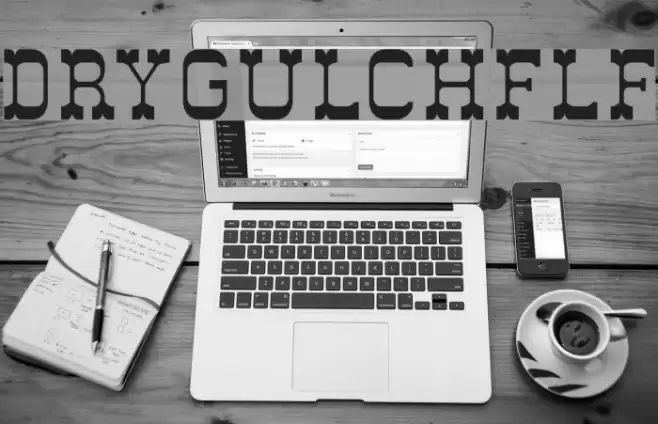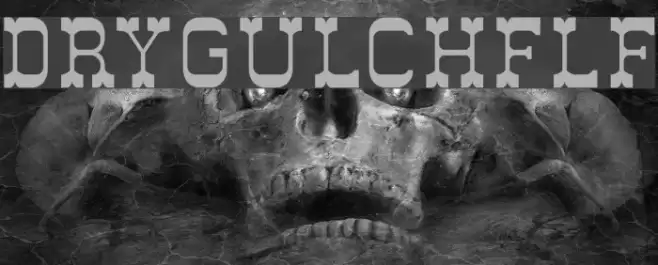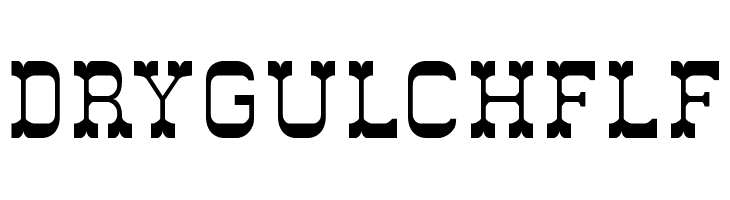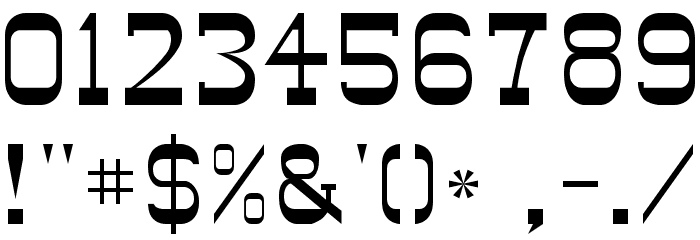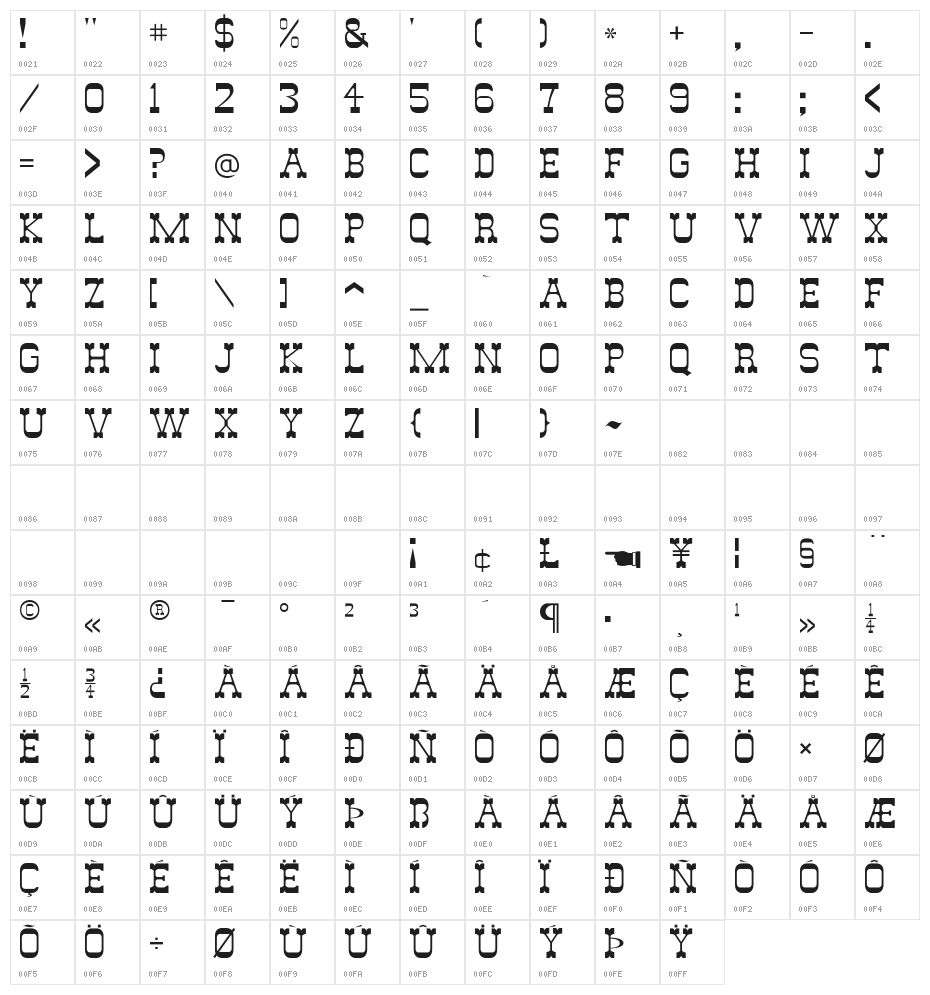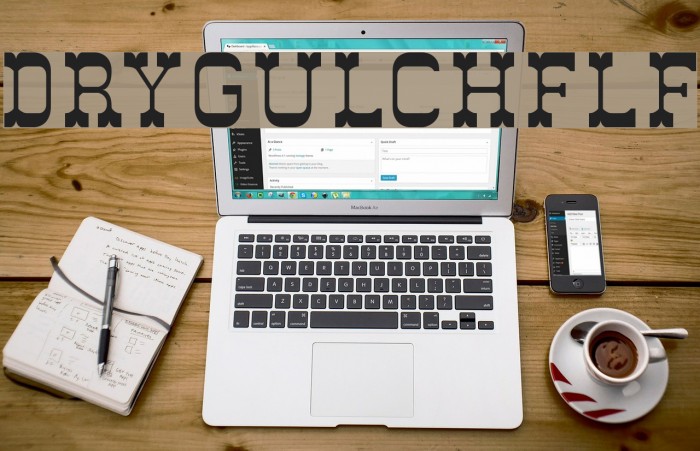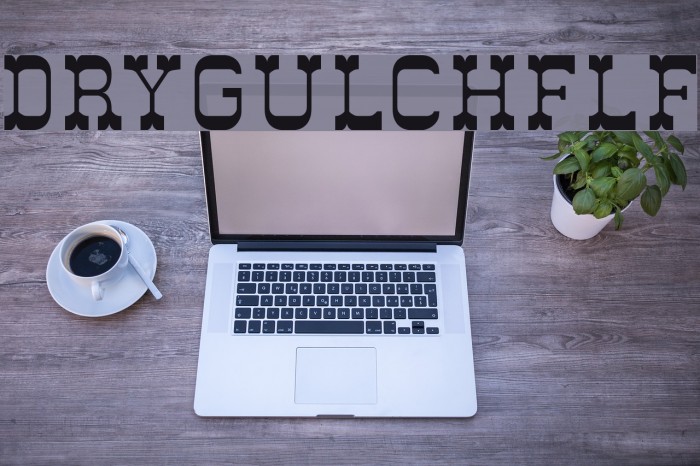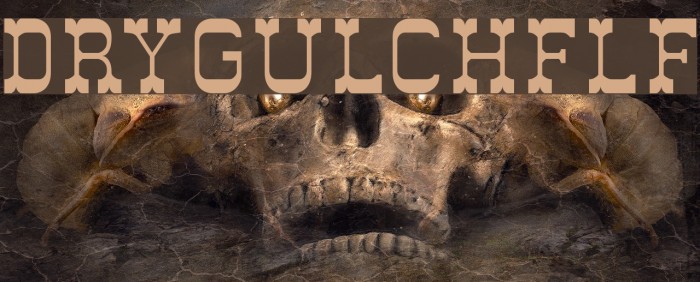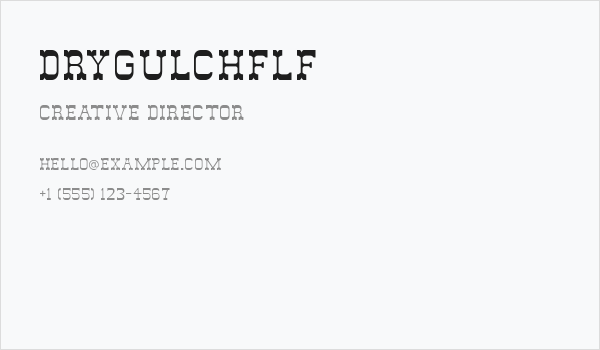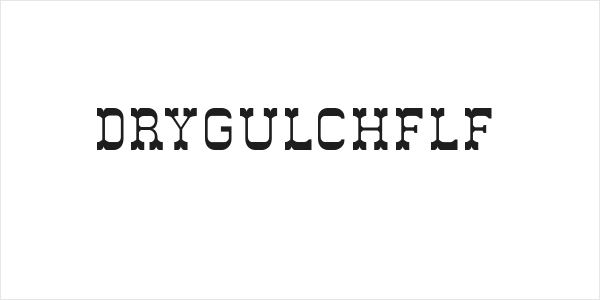
DryGulchFLF Font
DryGulchFLF Description
This font features a bold, slab serif style with distinct, blocky serifs that give it a strong, authoritative presence. The characters are uniformly structured, with a consistent stroke width that enhances readability. The uppercase and lowercase letters maintain a uniform height, contributing to a cohesive and balanced appearance. The numerals are clear and legible, matching the boldness of the alphabetic characters. Special characters are well-defined, maintaining the overall aesthetic of the font. This font's design is reminiscent of vintage Western typography, making it ideal for projects that require a touch of ruggedness and nostalgia.
A bold, slab serif font with a vintage Western aesthetic from Uncategorized fonts.
- Proposed Projects: Ideal for posters, signage, branding, and any design needing a vintage Western feel.
- Overall Style: Vintage